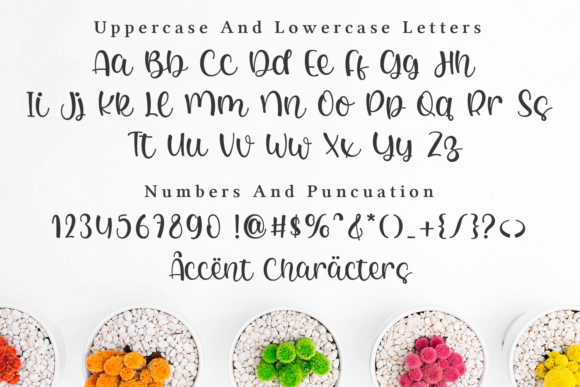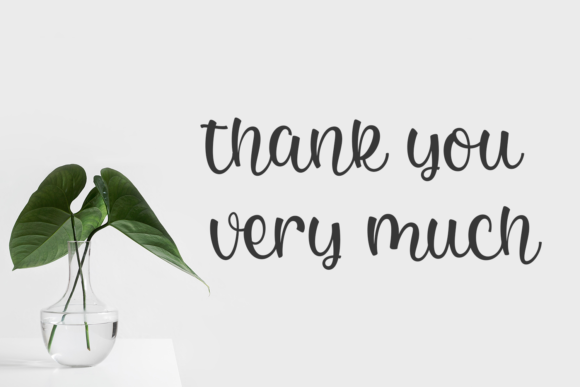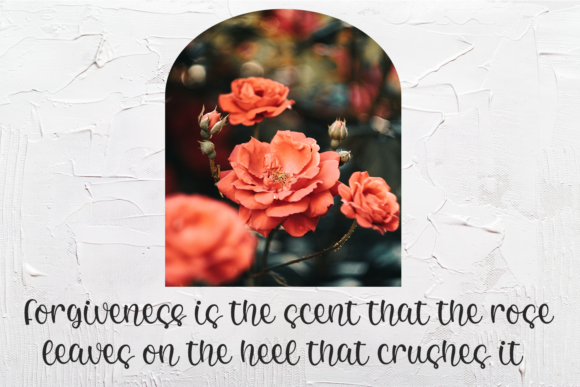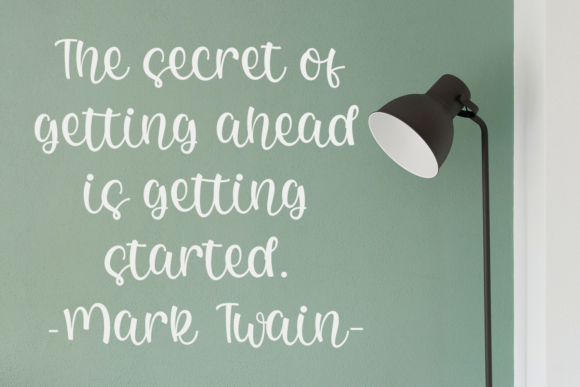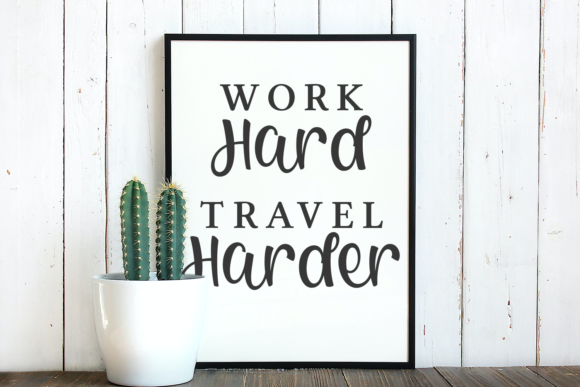
The Perfect Script for Your Holiday Projects
This is where the Holiday Font comes in – a sweet, flowing, and round lettered script font that’s perfect for adding a touch of warmth and festivity to your designs. With its versatility and timeless charm, the Holiday Font can be easily matched to a wide range of projects, from invitations and greeting cards to social media graphics and packaging design.
For designers, the Holiday Font is a valuable asset that can help bring their creative ideas to life. Its unique blend of elegance and playfulness makes it an ideal choice for projects that require a sense of joy and celebration. Whether you’re working on a holiday campaign or simply want to add a festive touch to your designs, the Holiday Font is sure to make your projects stand out.
Holiday Font Key Features
- Font Family: Holiday Font is a unique, decorative font designed to evoke a festive atmosphere. It includes a range of characters, from uppercase and lowercase letters to numbers and punctuation.
- Unique Characteristics: Holiday Font features intricate, hand-drawn designs and ornaments, making it perfect for creating festive and celebratory content, such as holiday cards, invitations, and decorations.
- Language Support: Holiday Font supports a wide range of languages, including Latin, Cyrillic, and Greek alphabets, making it suitable for use in international contexts.
- Style Variations: The font includes a range of style variations, from bold and italic to regular and condensed, allowing users to customize their designs to suit their needs.
Holiday Font Review
I’ve had the chance to work with the Holiday Font, and I must say it’s been a mixed bag. Here are my thoughts:
- The font’s festive feel is perfect for holiday-themed projects. It’s got a fun, playful vibe that’s sure to get you in the mood for the season.
- The font is highly customizable, allowing you to adjust the size, color, and spacing to fit your design needs.
- The font includes a wide range of characters, including accents and punctuation, making it suitable for use in a variety of languages.
- The font can be a bit too ornate for some projects, making it difficult to read at smaller sizes. This may not be ideal for body text or other areas where readability is crucial.
- The font’s aesthetic is quite specific to the holiday season, making it less versatile for use in other contexts.
Overall, I think the Holiday Font is a great choice for holiday-themed projects, but it may not be the best fit for every design scenario. With some careful planning and customization, it can be a great addition to your design toolkit. However, it’s not a one-size-fits-all solution, and you may need to consider other options for more general or non-seasonal projects.
Some common use cases for Holiday Font include creating festive invitations, decorating holiday cards, and designing holiday-themed social media graphics. To get the most out of Holiday Font, experiment with different font sizes, colors, and styles to create a unique and eye-catching design.
Q: Do the Holiday Font fonts include any special characters or glyphs?
Yes, the Holiday Font fonts include a range of special characters and glyphs, including holiday-themed icons, ornaments, and decorations. These characters can be accessed through the font’s character map or by using Unicode codes. They are designed to add an extra layer of festive flair to your designs and can be used in a variety of creative ways.